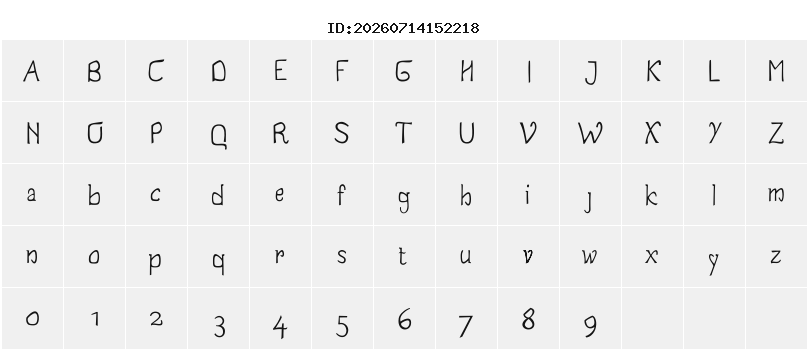
• Font Name: Jale
• Full Font Name: Jale
• Designer: Jazmin Pascuzzi
About Jale.ttf
Jale.ttf is a modern, elegant sans-serif font designed for ultimate readability and visual harmony. Perfect for branding, headlines, web design, and print materials.